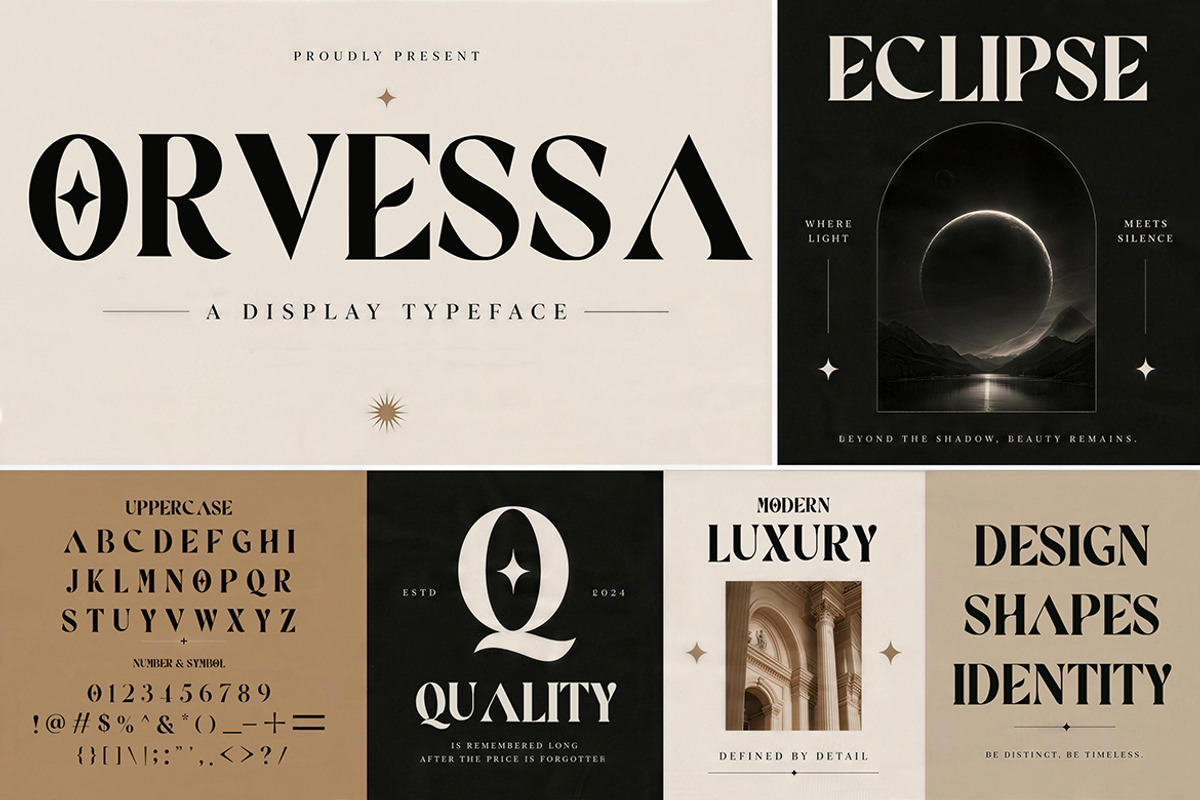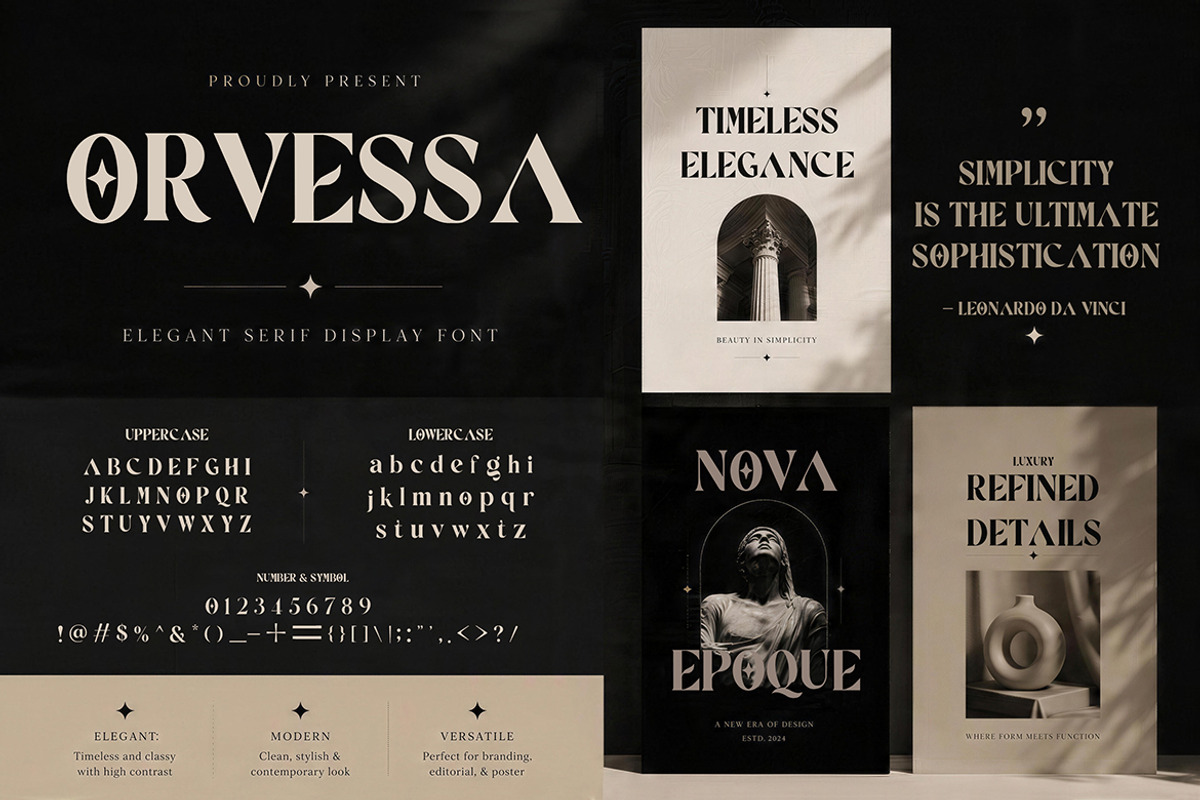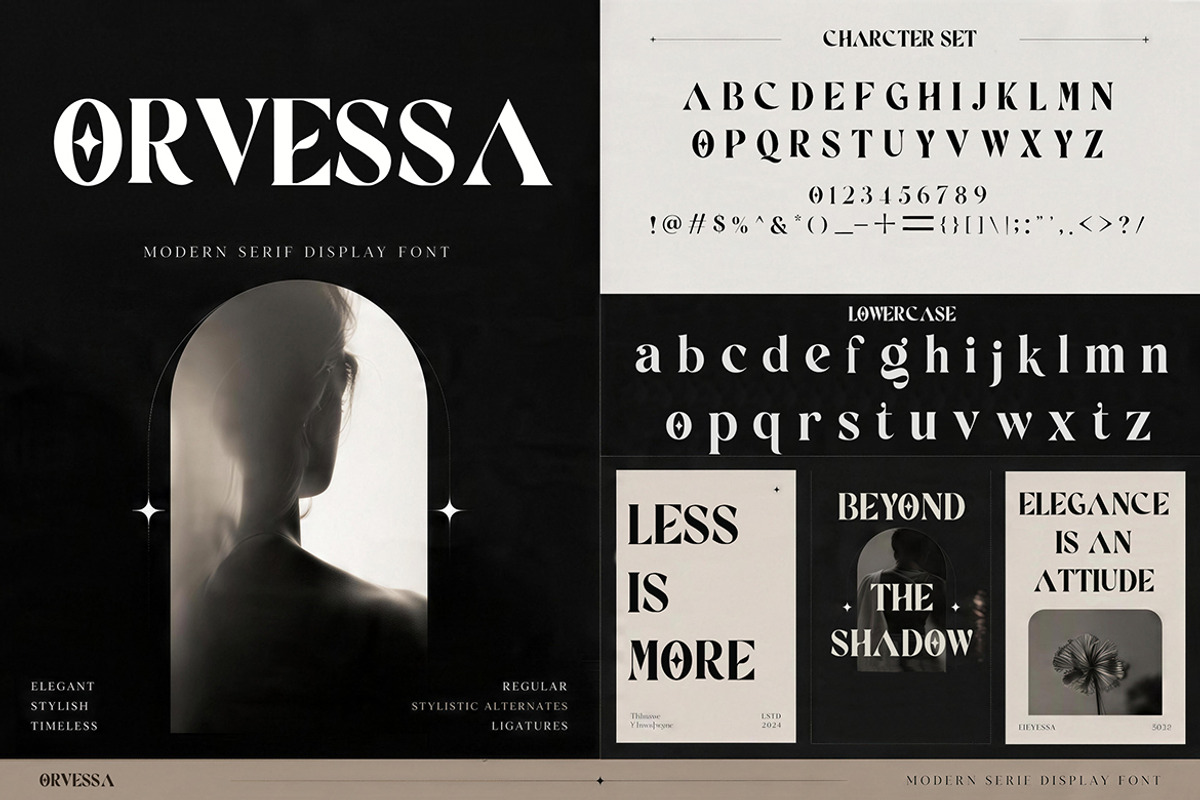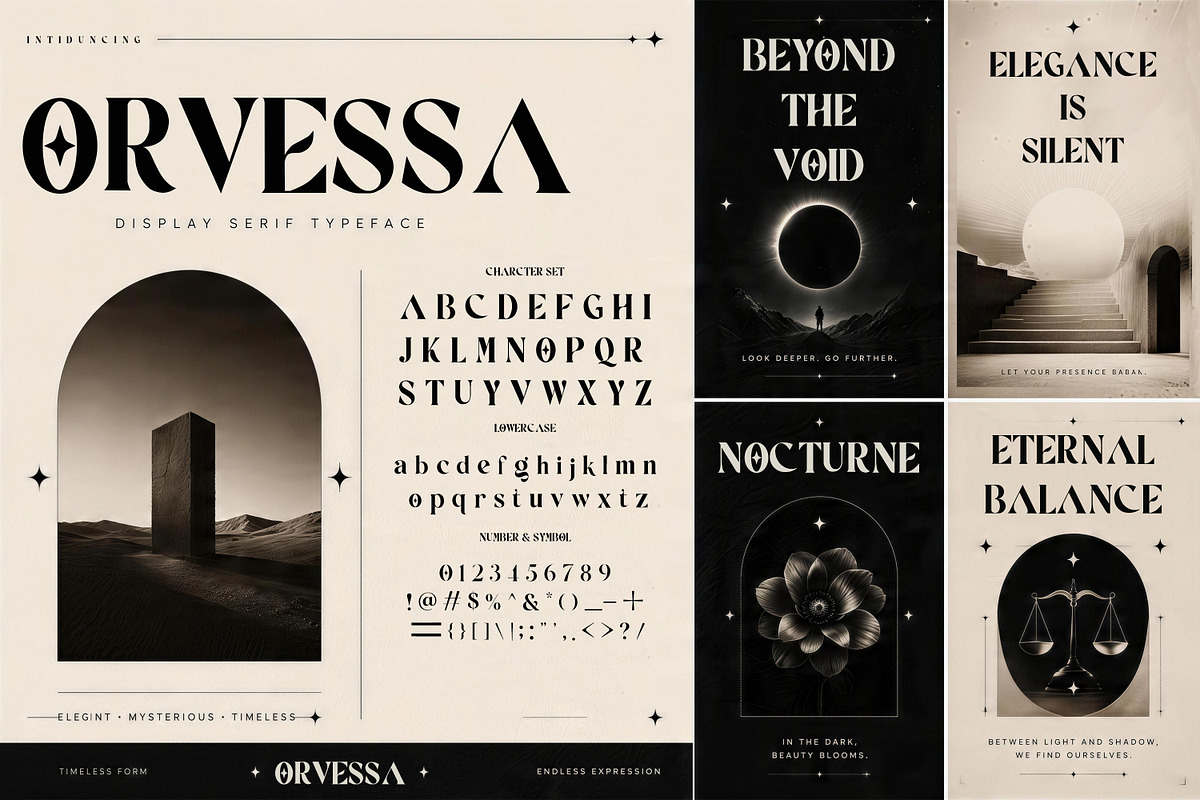
ORVESSA
ORVESSA is an elegant display serif typeface that combines timeless sophistication with a mysterious, celestial character. Featuring sharp high-contrast strokes, sculptural letterforms, refined curves, and distinctive decorative details, it creates a bold visual presence while maintaining a luxurious editorial feel. Its dramatic personality makes it especially suitable for premium branding, fashion-inspired layouts, artistic posters, and sophisticated visual identities.
* Luxury branding and visual identities
* Editorial and fashion magazine layouts
* Perfume, beauty, and cosmetic packaging
* Elegant posters, headlines, and titles
* High-end invitations and sophisticated advertisements
With its dramatic contrast, distinctive character shapes, and refined serif construction, ORVESSA brings timeless elegance and mysterious sophistication to every creative project.